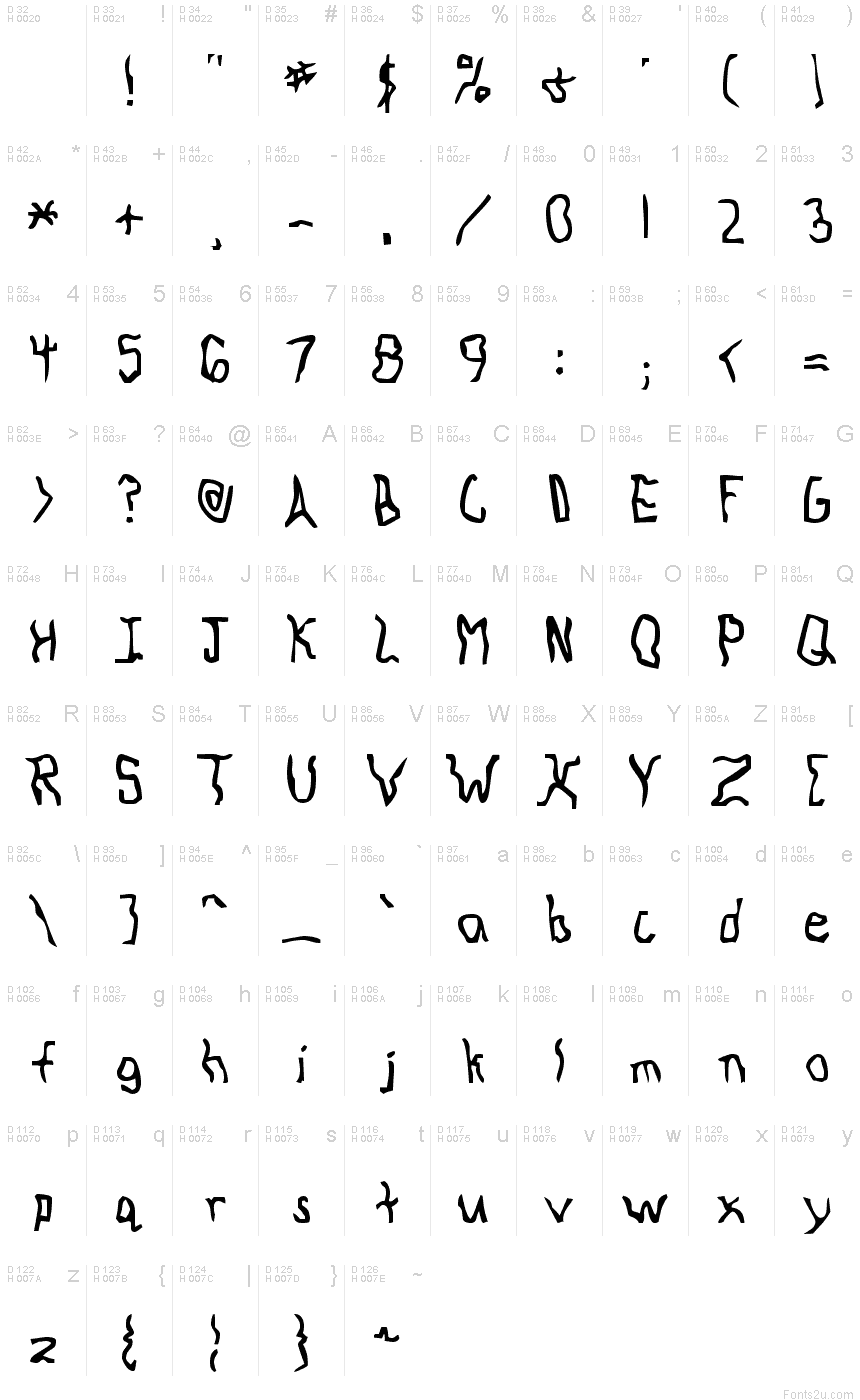
Knocked Around
Knocked Around font by Unauthorized Type is a free distorted horror display typeface that looks like it’s been scratched onto a wall with something sharp. The letters twist and lurch with uneven strokes, as if they’re slouching under their own weight, giving your text a raw, handmade creepiness. There’s a jittery rhythm to the spacing that makes every word feel unstable and a little bit dangerous.
Using Knocked Around, your headlines instantly feel like they belong on horror posters, Halloween flyers, haunted house branding, thriller book covers, eerie game titles, or grungy album art. This free font works best big and bold, letting its irregular outlines and jagged curves stay visible and unsettling. Pair it with a clean, neutral sans serif for body copy to keep everything readable while the chaos stays in the titles.
This initial version includes all normal characters, plus a few extras.
This is my first attempt to create lowercase letters in a font. My first try at any font (Previewance - found at my web site) had two versions of each capital letters. I am hoping that this one can be of more use. As time goes by, and my skills increase, hopefully so will the quality of my fonts.